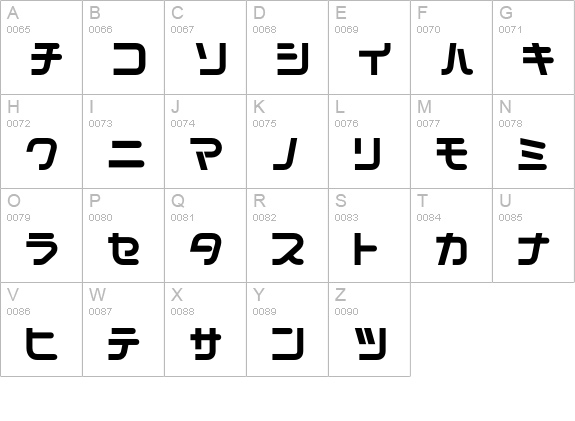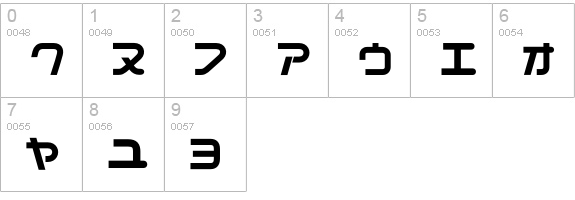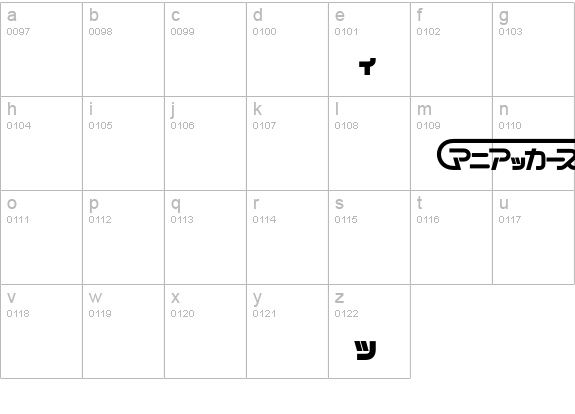
MMFont-Black is a maximum-weight, dramatic variant in the MMFont typeface family \xE2\x80\x94 well suited to maximum-impact headlines, posters, and packaging.
Introducing MMFont-Black, a sleek and stylish font that exudes sophistication and modernity. This versatile typeface features bold lines and sharp edges, making it perfect for creating eye-catching headlines and attention-grabbing designs. Whether you're working on a logo, poster, or website, MMFont-Black will surely make a bold statement. The best part? MMFont-Black is completely free to download at FontsMarket.com. With just a few clicks, you can add this stunning font to your collection and start using it in your projects right away. Don't miss out on this incredible opportunity to elevate your designs with the striking elegance of MMFont-Black. Download it now and let your creativity shine!